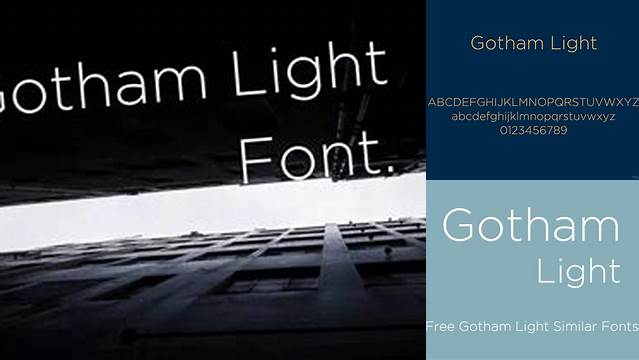
Gotham Light Font: Free Download Guide
Hey guys! Are you on the hunt for the perfect font to elevate your design projects? Look no further! Gotham Light Font is a sleek, modern typeface that can bring a touch of sophistication to just about anything. Whether you're designing a website, crafting a logo, or putting together a presentation, Gotham Light can make your work shine. This guide will walk you through everything you need to know about Gotham Light Font and where you can find it for free (or at least, some awesome alternatives!). Let's dive in!
What is Gotham Light Font?
Gotham Light is a sans-serif typeface known for its clean lines, geometric shapes, and overall readability. Designed by Tobias Frere-Jones and Jesse Ragan in 2000, it quickly gained popularity due to its versatility and modern appeal. Its simplicity makes it perfect for a wide range of applications, from branding to editorial design. The Gotham Light Font weight offers a lighter, more delicate touch compared to its bolder counterparts, making it ideal for situations where you want to convey elegance and subtlety. It's like the Audrey Hepburn of fonts – timeless and classy!
When you're thinking about using Gotham Light Font, consider how its characteristics align with your project's goals. Are you aiming for a minimalist aesthetic? Do you need a font that's easy to read on screens? Gotham Light excels in these areas. Its widespread use in various industries also means it's a familiar and trusted choice, which can help establish credibility. Remember, selecting the right font is more than just aesthetics; it's about conveying the right message and ensuring your content is accessible and engaging.
Why Choose Gotham Light for Your Projects?
Choosing the right font is crucial for any design project, and Gotham Light offers a unique blend of versatility and modernity that makes it a top pick for many designers. Its clean, sans-serif design ensures readability across various media, from websites to print materials. The understated elegance of Gotham Light can elevate your project, providing a sophisticated touch without being overly distracting. This makes it an excellent choice for logos, headlines, body text, and more. Plus, its wide availability means you can easily integrate it into your workflow, whether you're using Adobe Creative Suite, Microsoft Office, or other design software.
One of the standout features of Gotham Light Font is its adaptability. It works well in both digital and print formats, maintaining its clarity and impact regardless of the medium. This is particularly important in today's multi-platform world, where your designs need to look consistent across various devices and screens. Moreover, its geometric structure gives it a contemporary feel that aligns well with modern design trends. If you're looking to create a sleek, professional, and user-friendly design, Gotham Light is definitely worth considering. Its ability to convey simplicity and clarity makes it a valuable asset in any designer's toolkit, ensuring your message is communicated effectively and stylishly.
Free Gotham Light Alternatives You Can Use
If you're looking for a font that captures the essence of Gotham Light Font without the hefty price tag, you're in luck! Several excellent free alternatives offer a similar aesthetic. These fonts can be just as effective in your design projects, providing a clean and modern look without compromising on quality. One popular alternative is Montserrat, a sans-serif typeface designed by Julieta Ulanovsky. Montserrat shares many of Gotham Light's characteristics, including its geometric shapes and excellent readability. It's available on Google Fonts, making it easy to integrate into your web projects.
Another great option is Raleway, designed by Matt McInerney. Raleway is known for its elegant and slightly more rounded appearance, which can add a touch of warmth to your designs. Like Montserrat, Raleway is also available on Google Fonts, making it a convenient and cost-effective choice. For those who prefer a more minimalist style, Open Sans is an excellent alternative. Designed by Steve Matteson, Open Sans is optimized for readability across various screen sizes, making it a versatile option for web design. These Gotham Light Font alternatives offer a range of styles and features, allowing you to find the perfect fit for your specific needs. By exploring these free options, you can achieve a similar look and feel without incurring any licensing costs, making your design projects both beautiful and budget-friendly.
Additionally, Gotham Light's widespread use and recognition have helped to establish it as a modern classic. Its familiarity and trustworthiness make it a safe and reliable choice for designers seeking to convey a professional and contemporary image. Of course, new and innovative fonts will continue to emerge, pushing the boundaries of typography and offering fresh perspectives. However, Gotham Light's timeless appeal and enduring qualities suggest that it will remain a staple in the designer's toolkit for the foreseeable future. Its ability to adapt to changing design trends and maintain its relevance ensures its lasting impact on the world of typography.